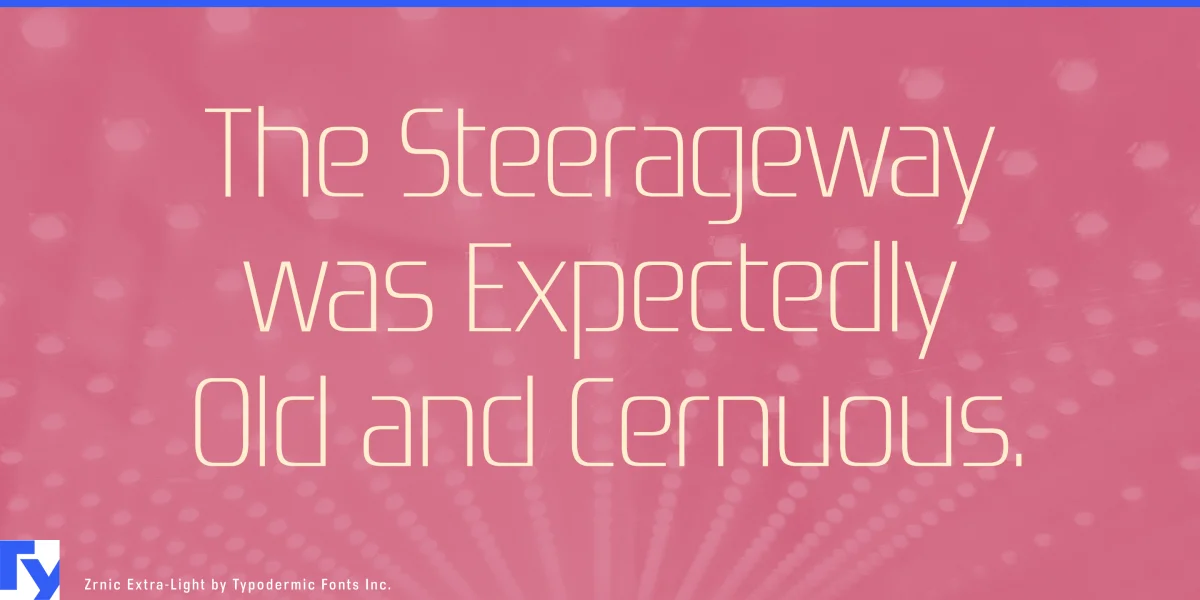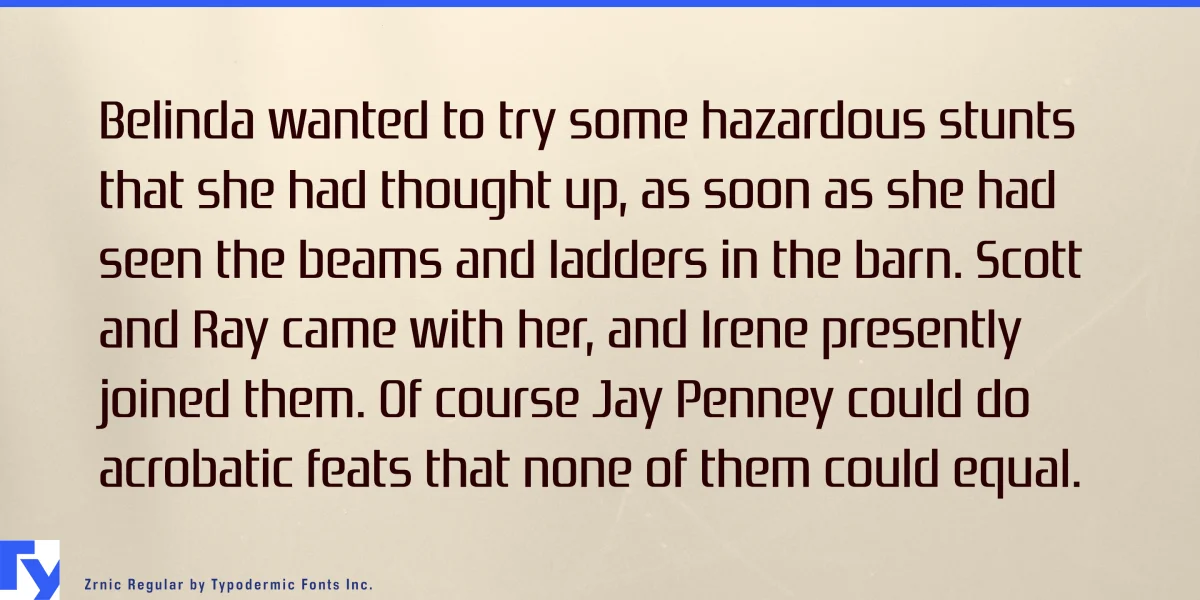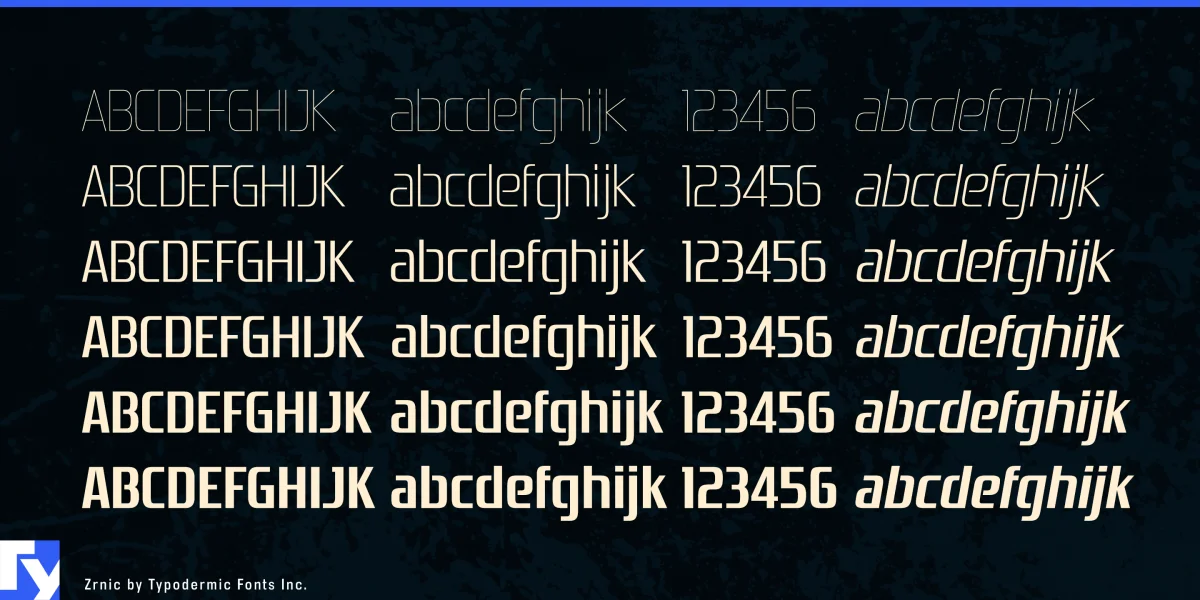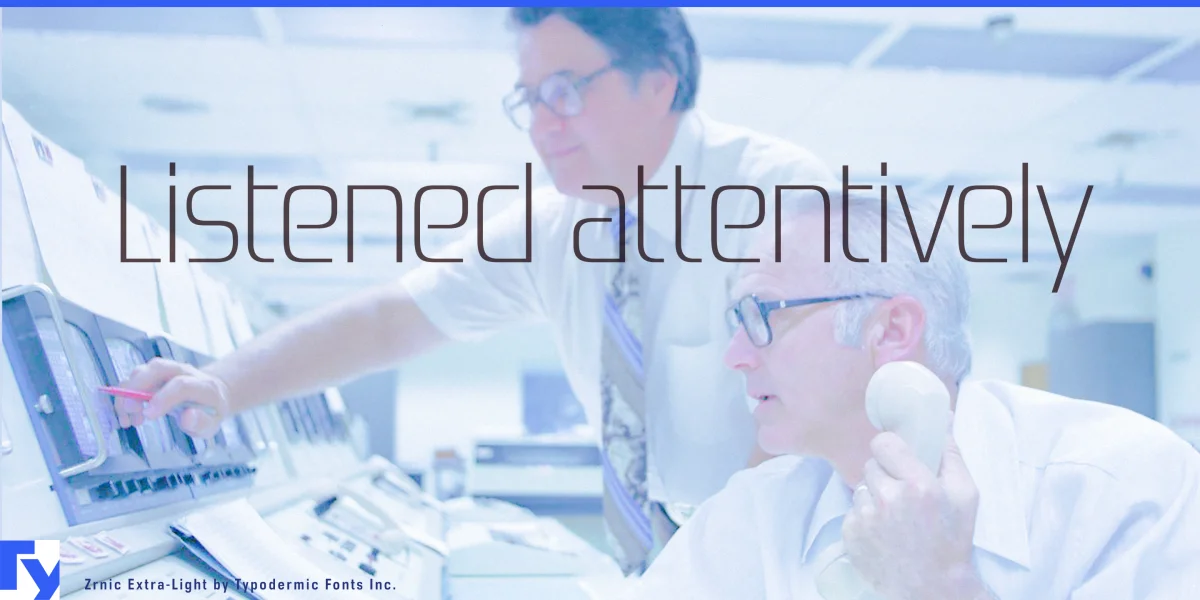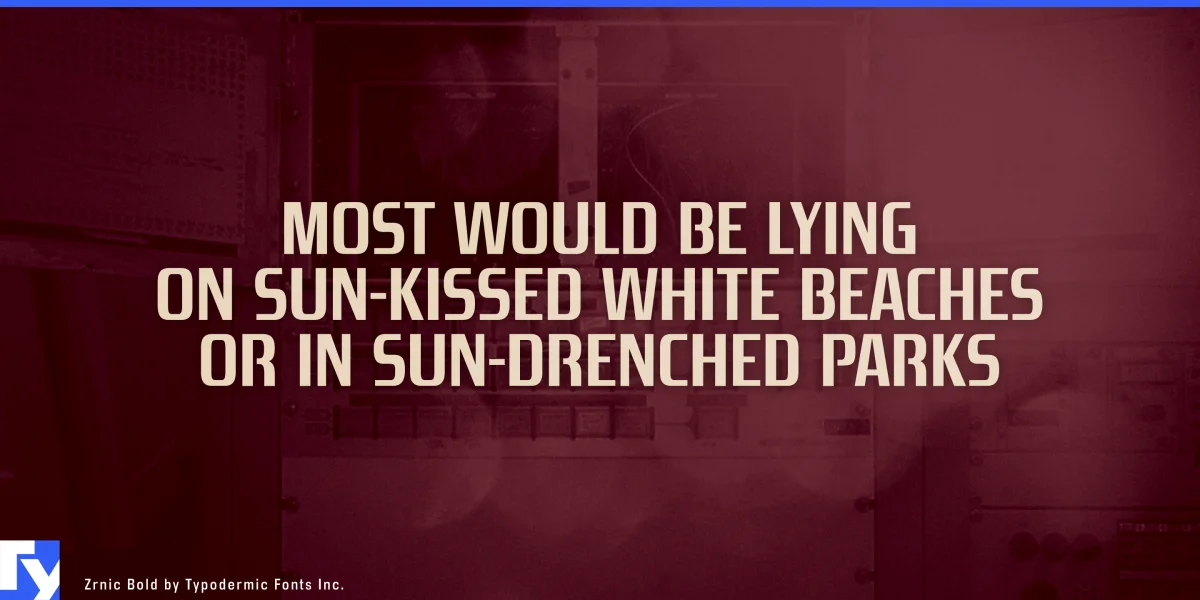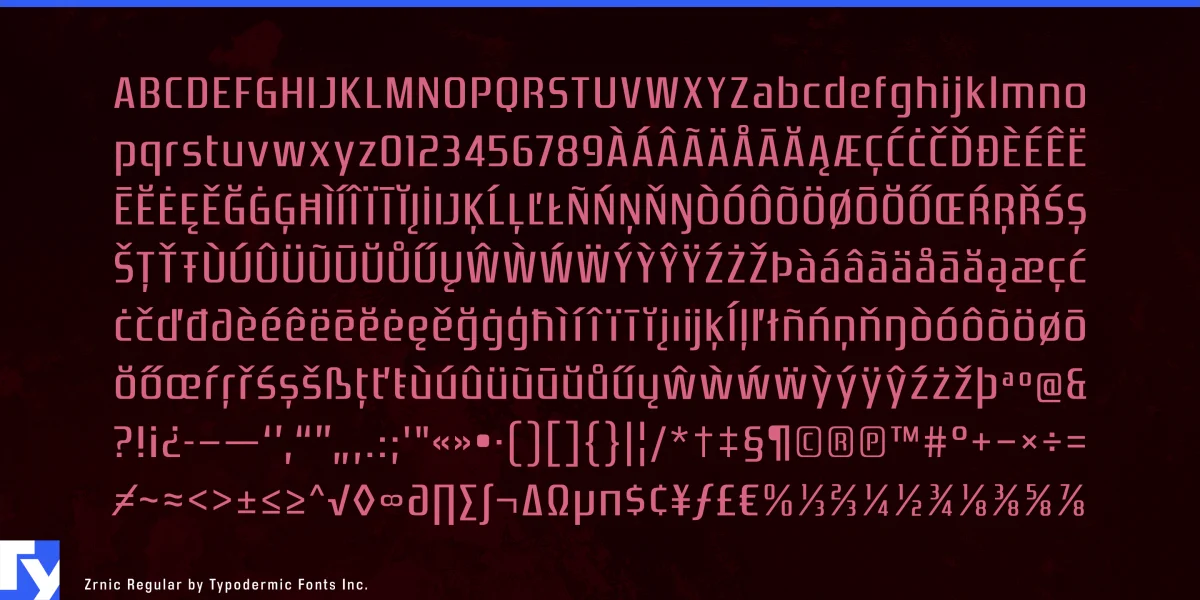
Zrnic is a boxy, futuristic typeface. Boxy, plastic letterforms are interspersed with gaps to reduce overall weight, lending Zrnic a stark industrial look. This is the correct tool to use when you want to convey the notion of technological precision. Zrnic comes in six weights and italics. Most Latin-based European writing systems are supported, including the following languages. Afaan Oromo, Afar, Afrikaans, Albanian, Alsatian, Aromanian, Aymara, Bashkir (Latin), Basque, Belarusian (Latin), Bemba, Bikol, Bosnian, Breton, Cape Verdean, Creole, Catalan, Cebuano, Chamorro, Chavacano, Chichewa, Crimean Tatar (Latin), Croatian, Czech, Danish, Dawan, Dholuo, Dutch, English, Estonian, Faroese, Fijian, Filipino, Finnish, French, Frisian, Friulian, Gagauz (Latin), Galician, Ganda, Genoese, German, Greenlandic, Guadeloupean Creole, Haitian Creole, Hawaiian, Hiligaynon, Hungarian, Icelandic, Ilocano, Indonesian, Irish, Italian, Jamaican, Kaqchikel, Karakalpak (Latin), Kashubian, Kikongo, Kinyarwanda, Kirundi, Kurdish (Latin), Latvian, Lithuanian, Lombard, Low Saxon, Luxembourgish, Maasai, Makhuwa, Malay, Maltese, Māori, Moldovan, Montenegrin, Ndebele, Neapolitan, Norwegian, Novial, Occitan, Ossetian (Latin), Papiamento, Piedmontese, Polish, Portuguese, Quechua, Rarotongan, Romanian, Romansh, Sami, Sango, Saramaccan, Sardinian, Scottish Gaelic, Serbian (Latin), Shona, Sicilian, Silesian, Slovak, Slovenian, Somali, Sorbian, Sotho, Spanish, Swahili, Swazi, Swedish, Tagalog, Tahitian, Tetum, Tongan, Tshiluba, Tsonga, Tswana, Tumbuka, Turkish, Turkmen (Latin), Tuvaluan, Uzbek (Latin), Venetian, Vepsian, Võro, Walloon, Waray-Waray, Wayuu, Welsh, Wolof, Xhosa, Yapese, Zapotec Zulu and Zuni.